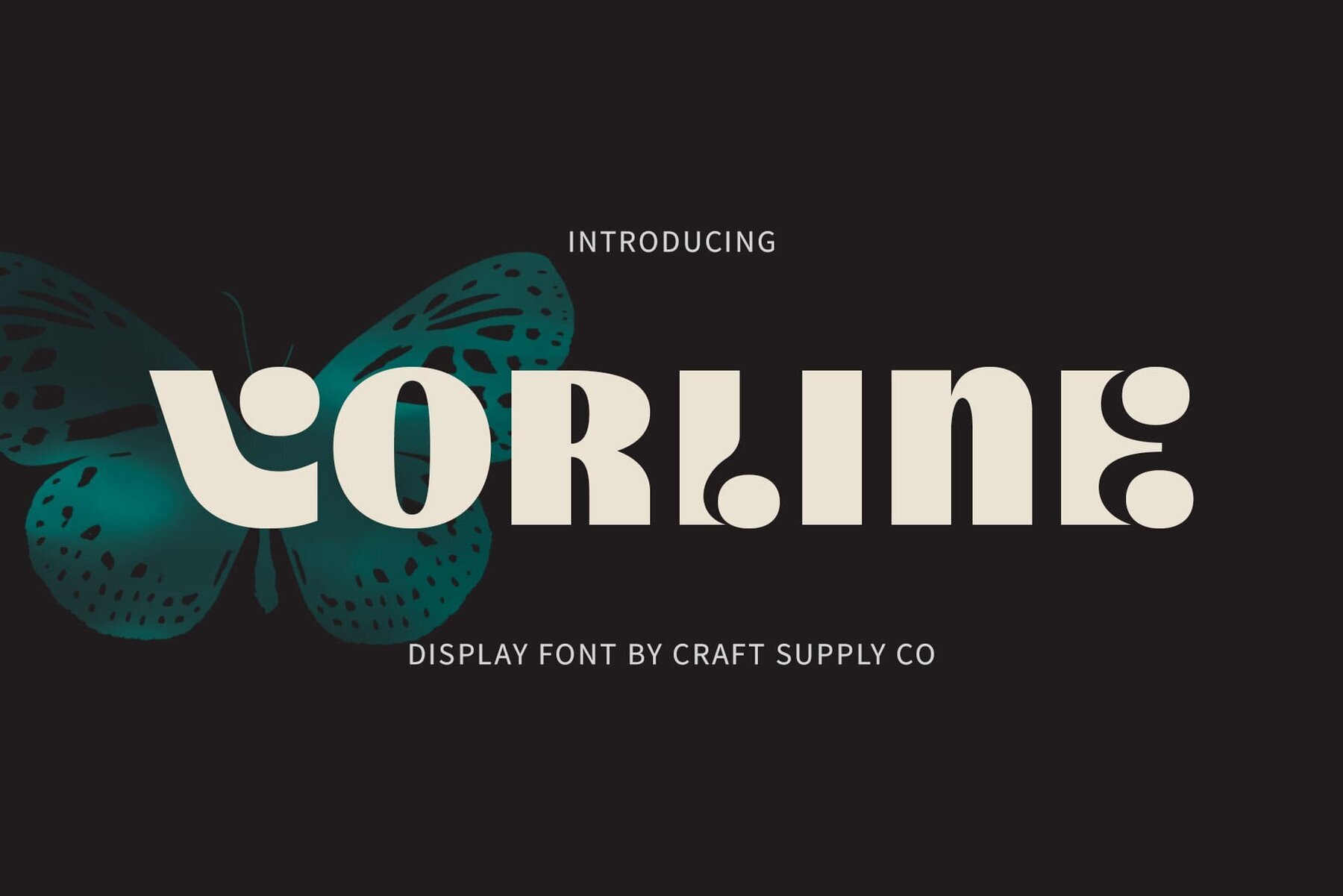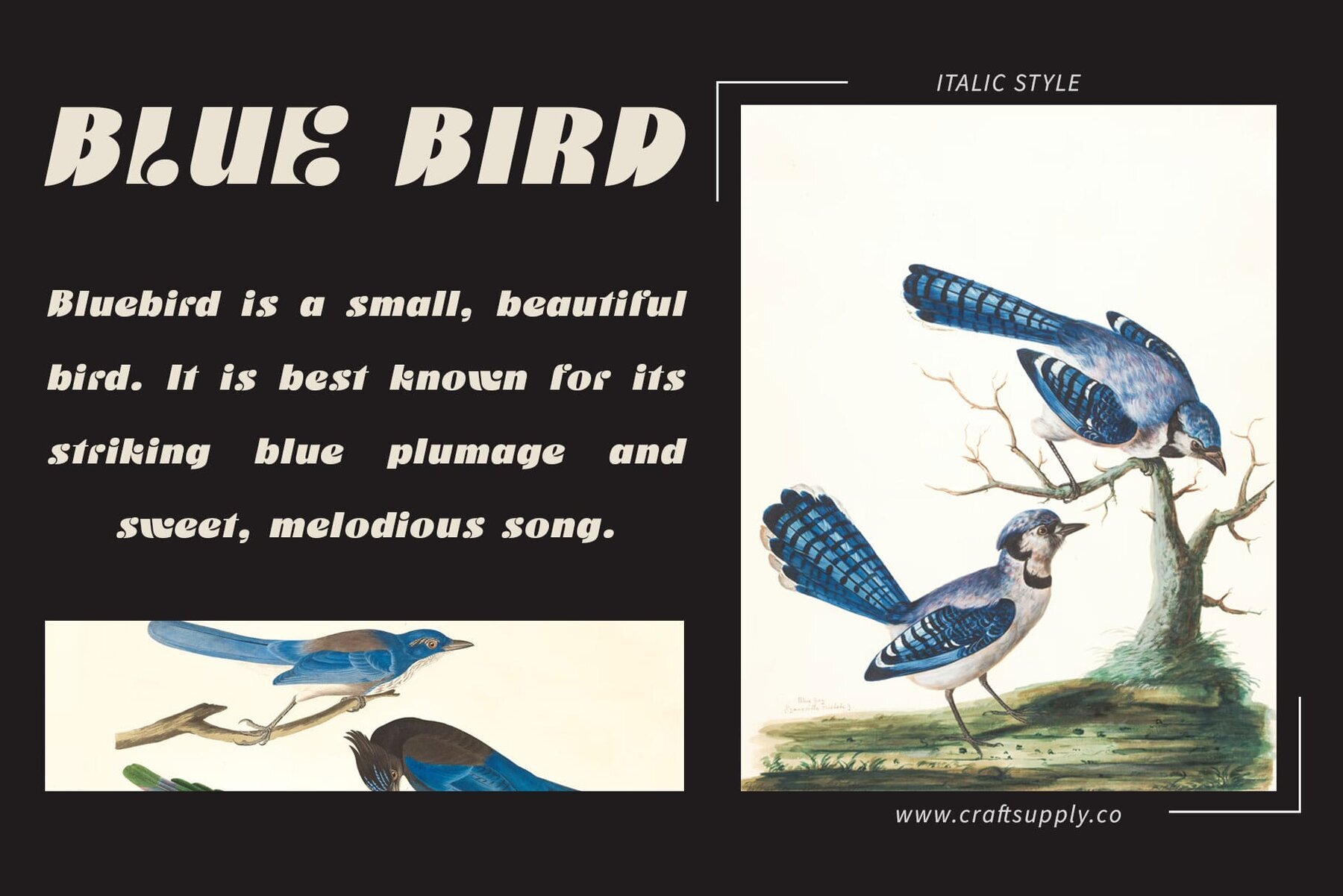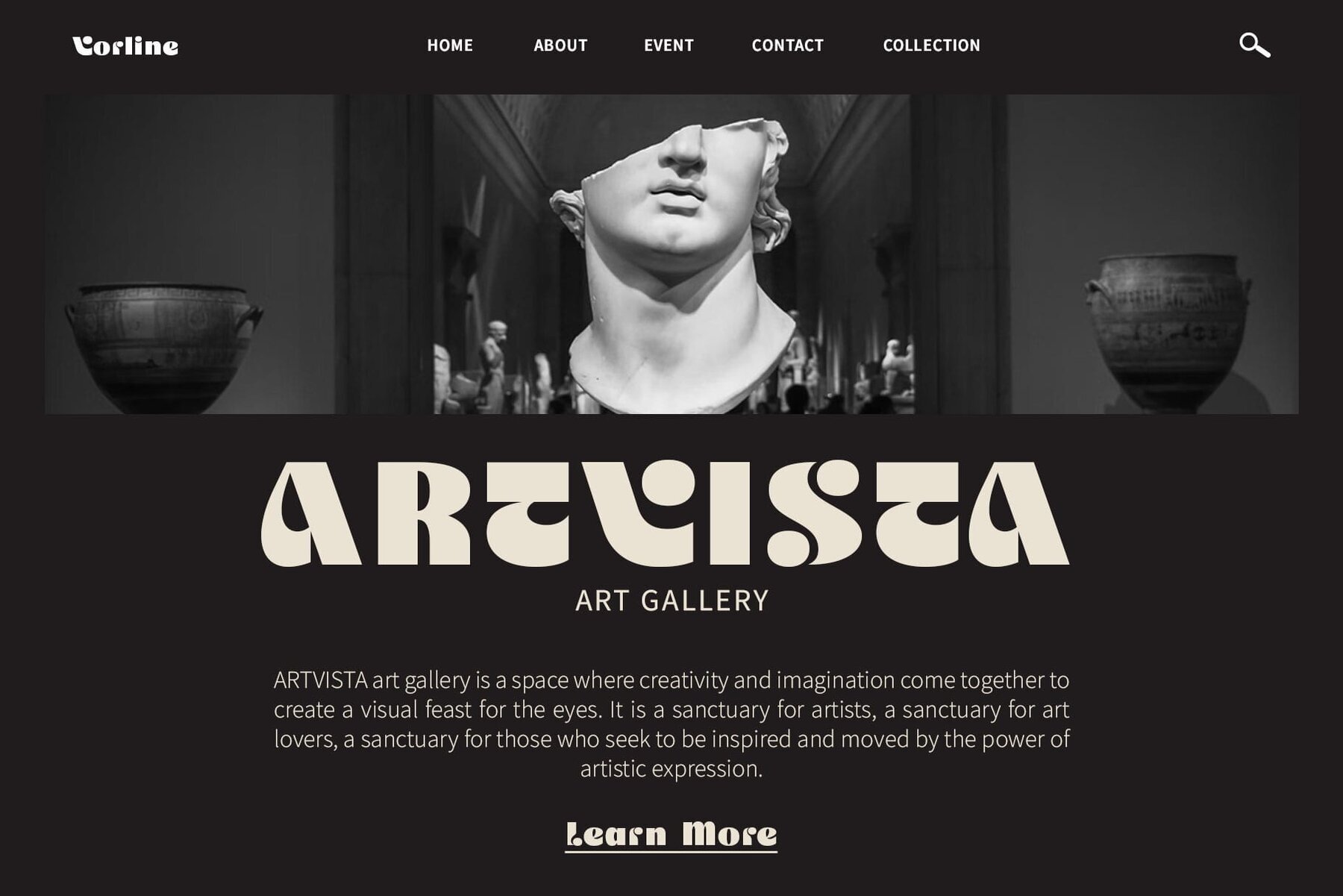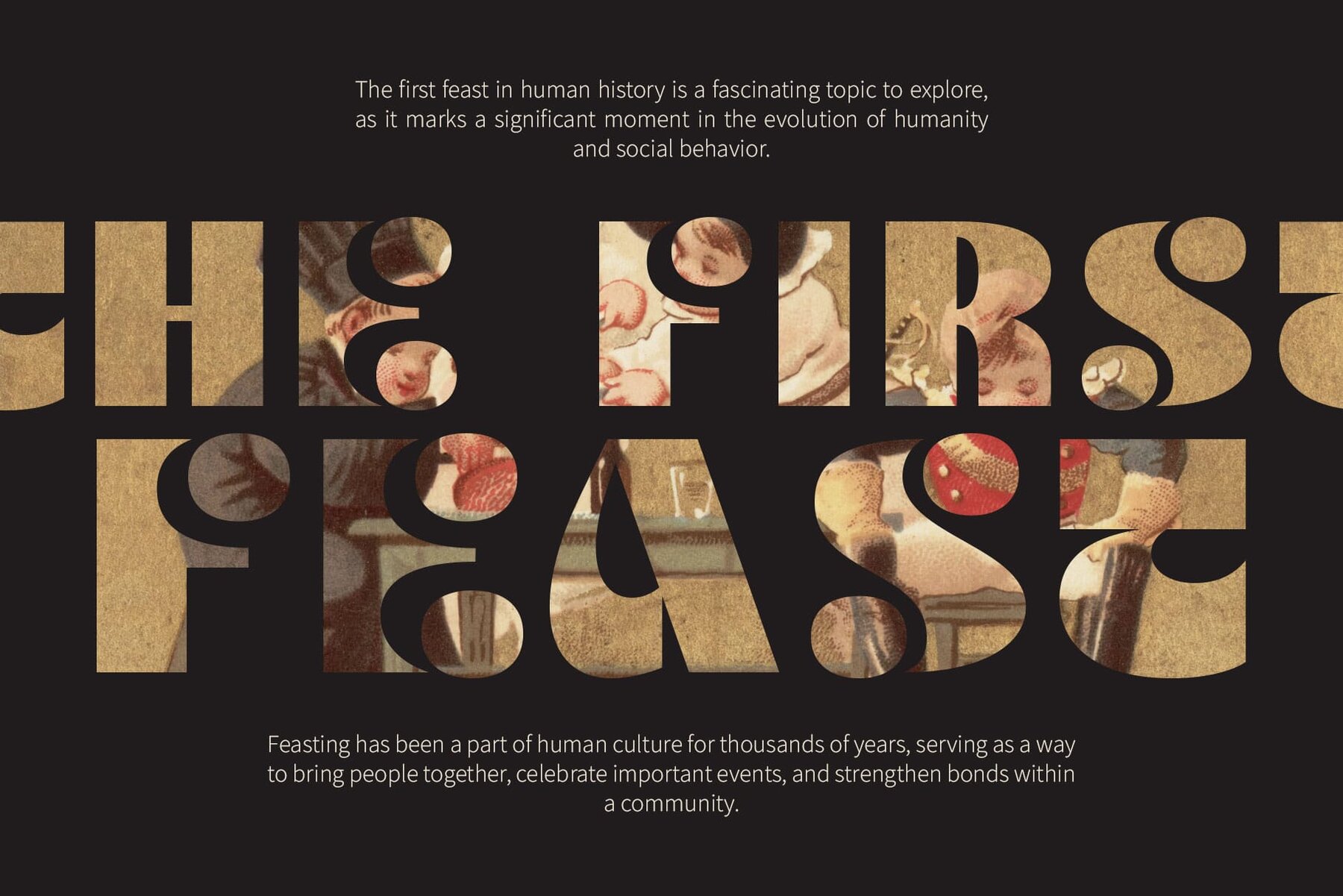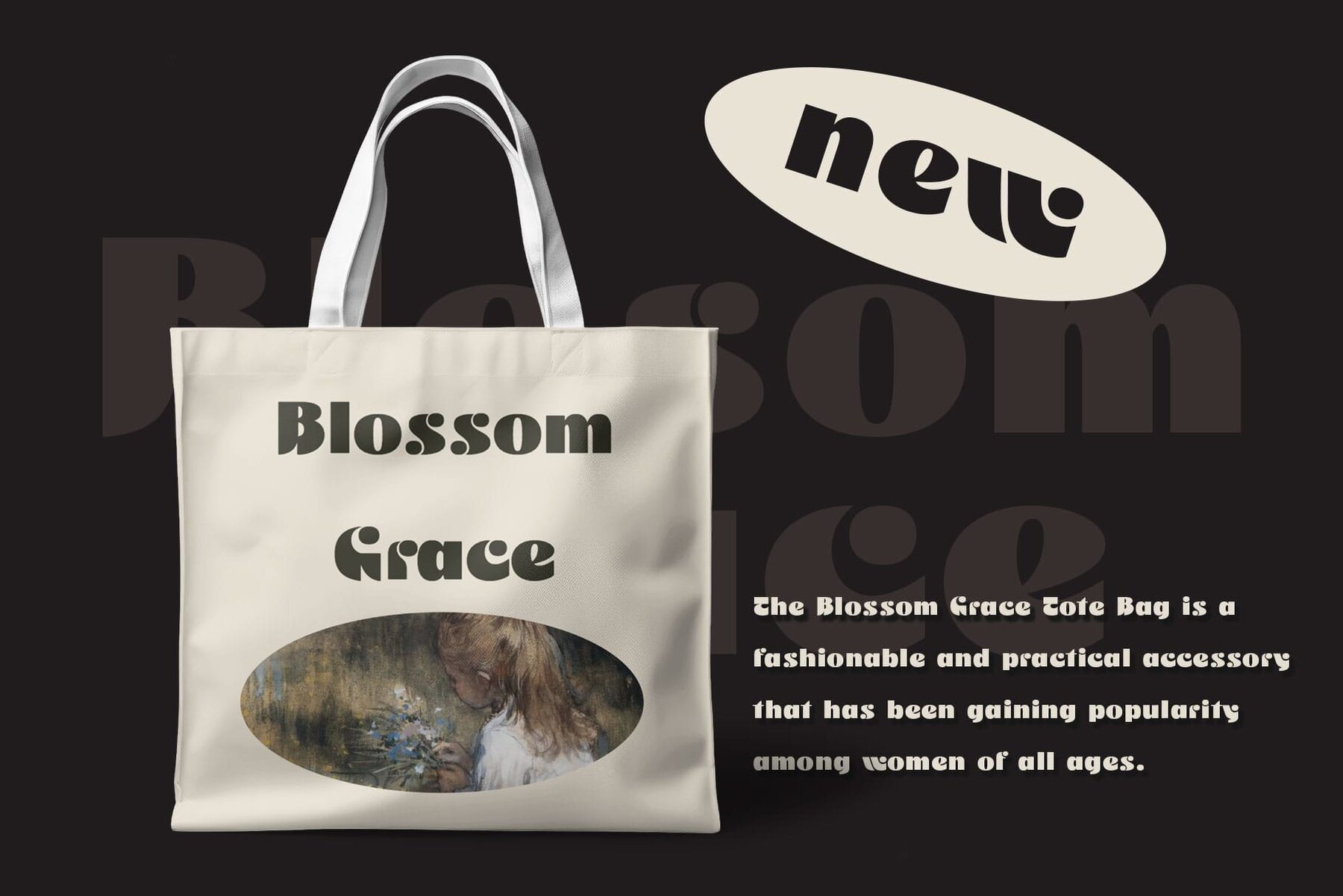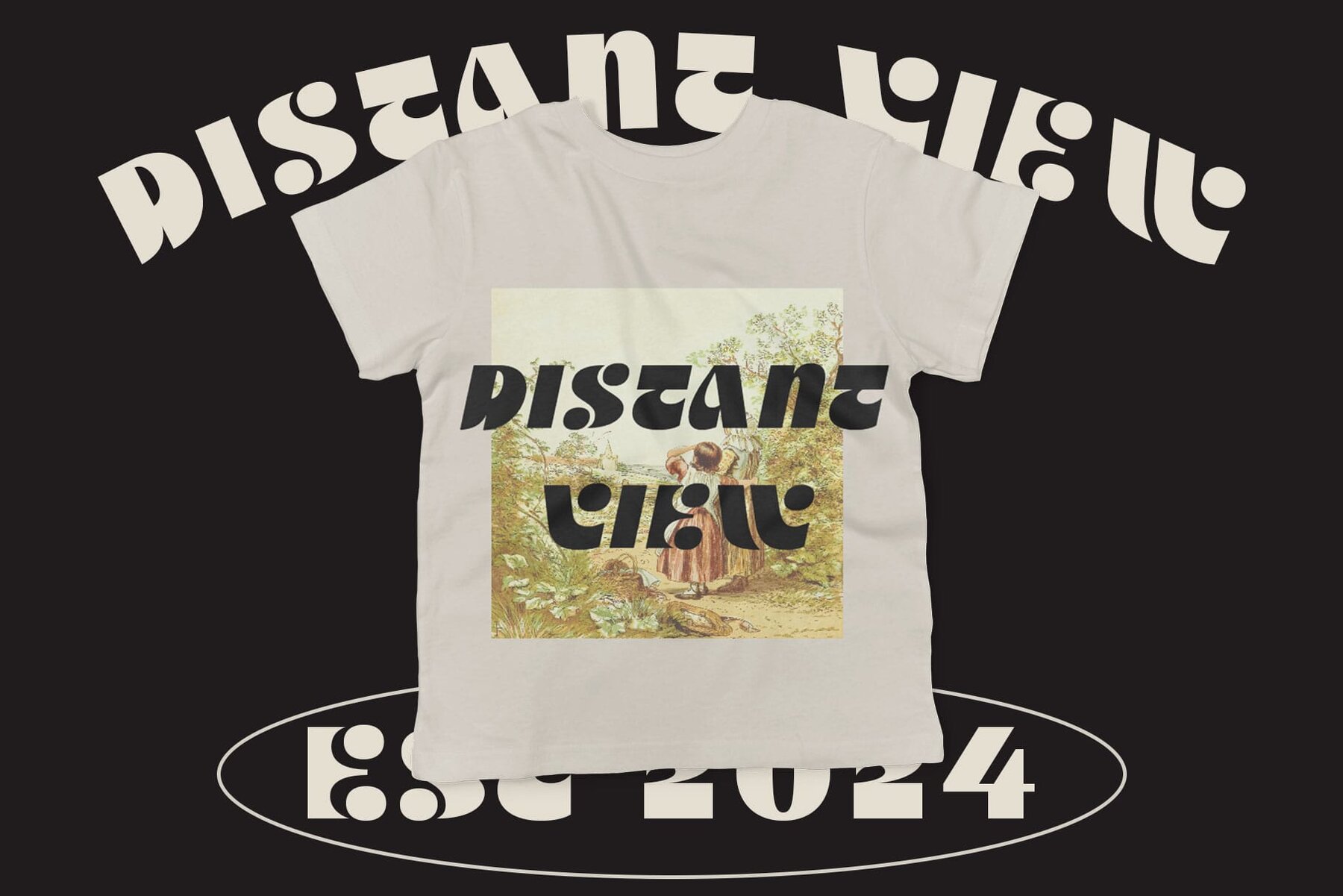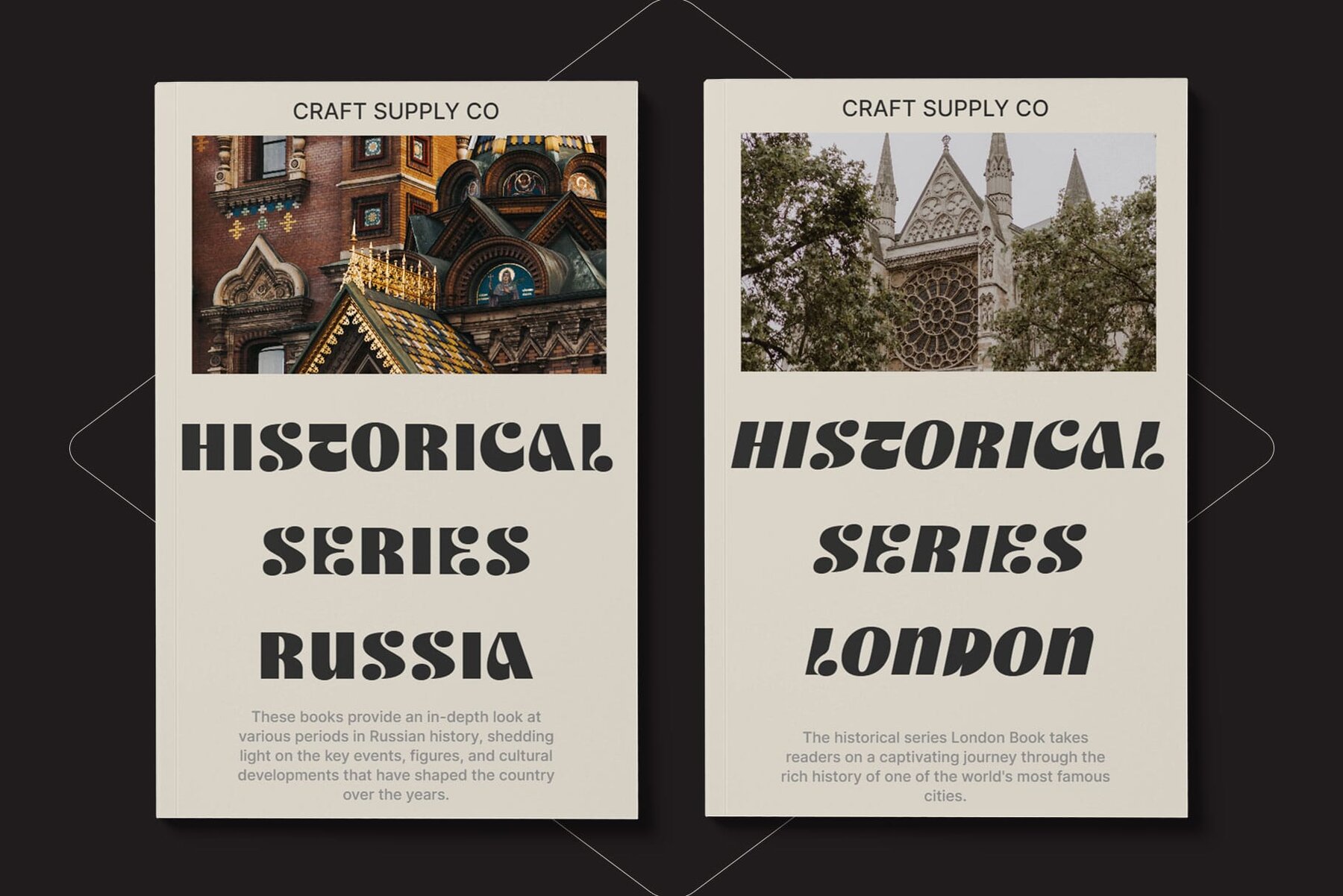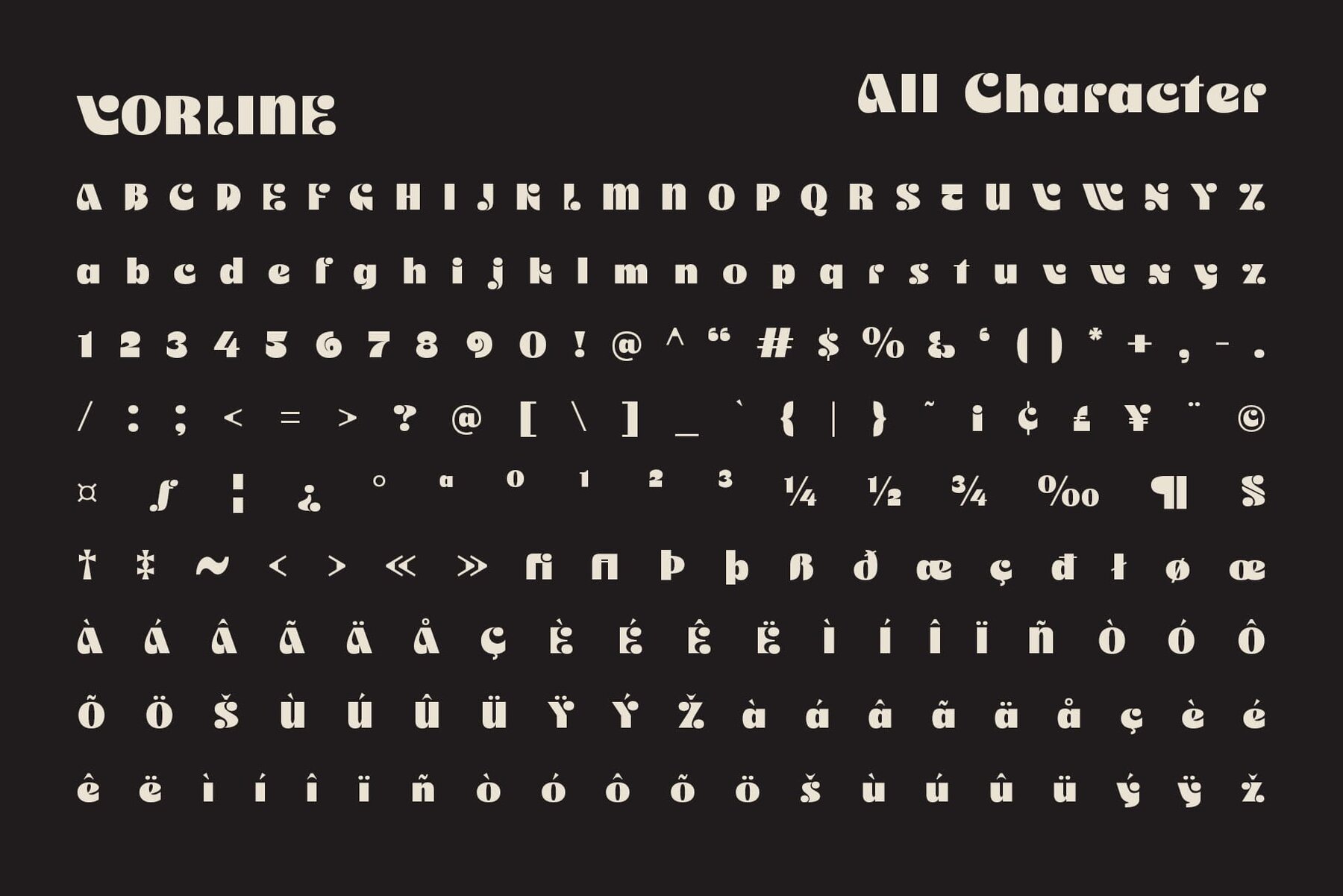
Vorline Font
Vorline offers a bold display design that commands attention with its striking presence. Each character exudes confidence, injecting a robust sense of boldness into your projects. Drawing from retro vibes, this font seamlessly incorporates a funky essence, providing a playful yet nostalgic touch. Whether you're designing posters, logos, headlines, or branding materials, Vorline’s dynamic style ensures your creations stand out.
Versatile and eye-catching, Vorline's retro appeal brings a sense of fun and personality to any visual project. The font includes uppercase and lowercase characters, numerals, punctuation (OpenType Standard), and supports multilingual characters with accents. With PUA encoding, accessing its unique features is easy. Choose Vorline for a bold, retro-inspired touch that adds flair and character to your designs.